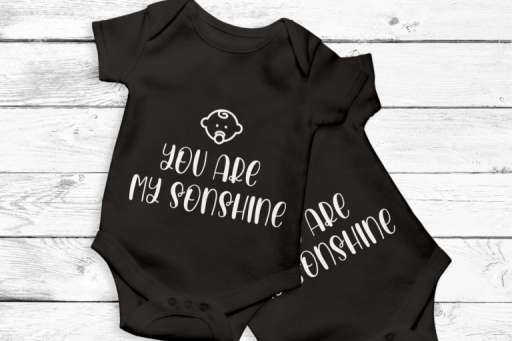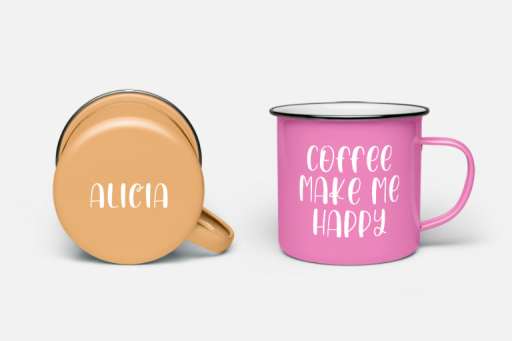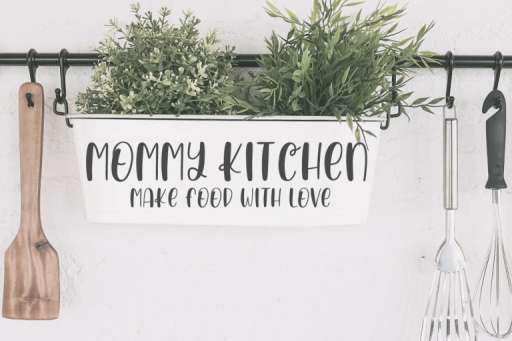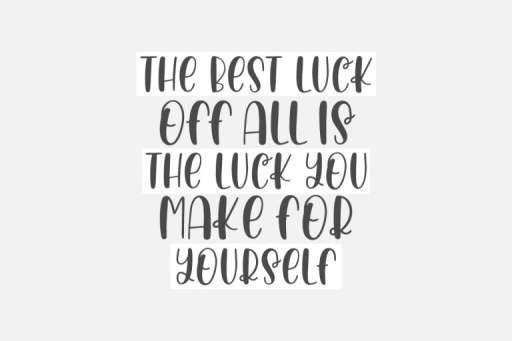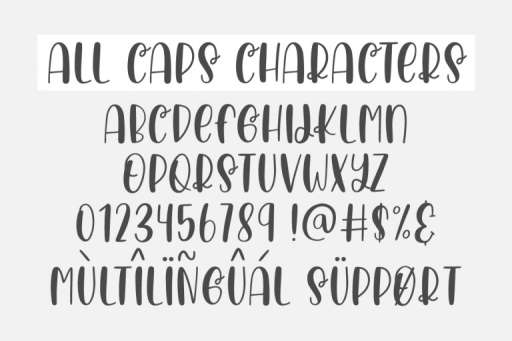
Rustic Peach – Cute Font
Rustic Peach is a handwritten font, has thick sides, and easy to read. Look Beautiful for logos, quotes, website, SVG design, t-shirt, branding, blogs, stationery, and more!
- Basic Latin A-Z and a-z
- Numbers and punctuation
- Multilingual